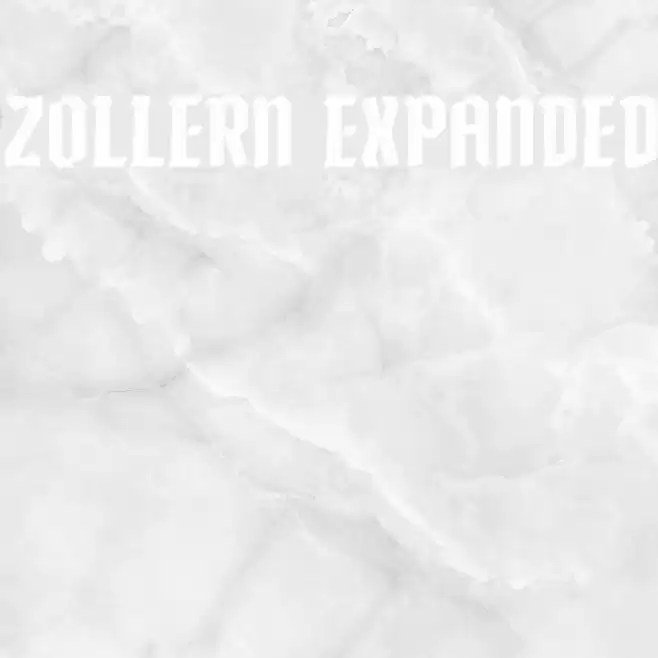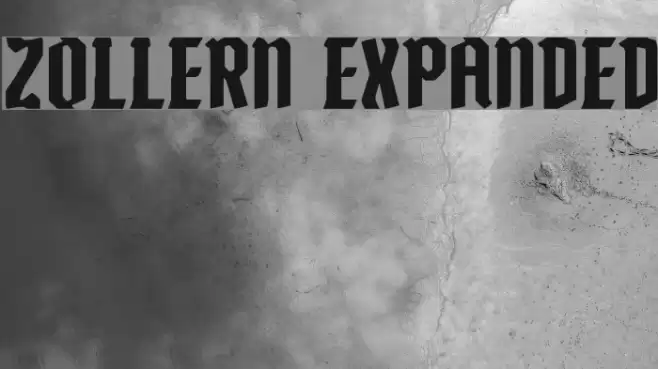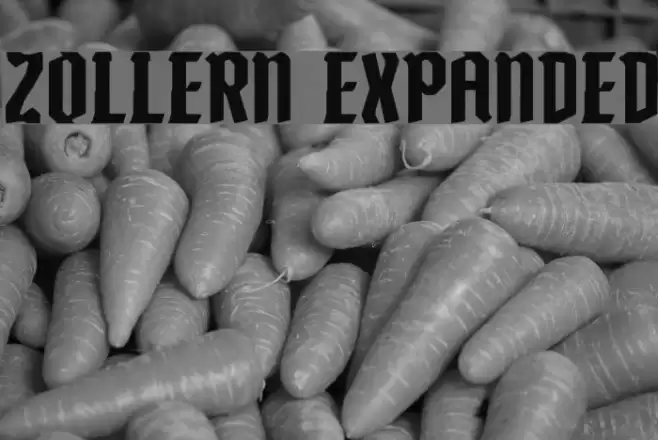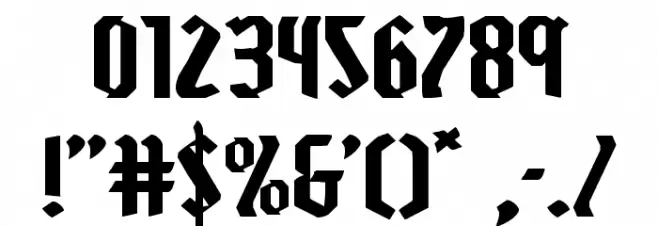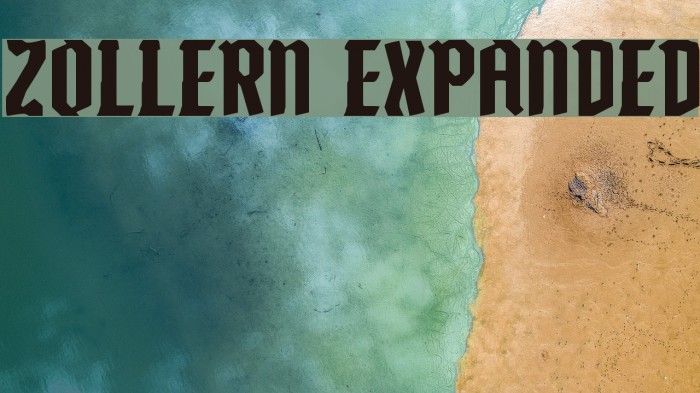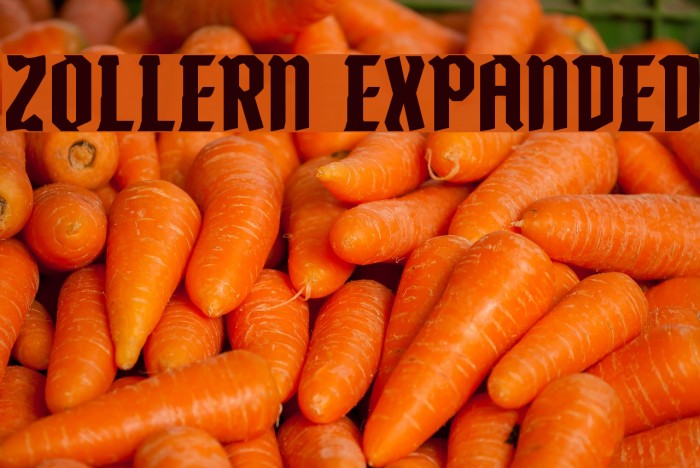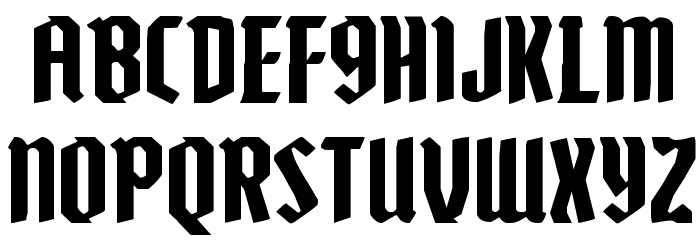
Zollern Expanded Font
Zollern Expanded Description
This font features a bold and striking design with a strong presence. The characters are angular and geometric, reminiscent of traditional Blackletter styles but with a modern twist. The uppercase and lowercase letters are consistent in their sharp, pointed edges, creating a cohesive and impactful look. The numbers and special characters maintain this aesthetic, ensuring uniformity across all elements. This font's unique style makes it stand out, offering a blend of historical influence and contemporary design.
A bold, angular font with a modern twist on traditional Blackletter styles from Uncategorized fonts.